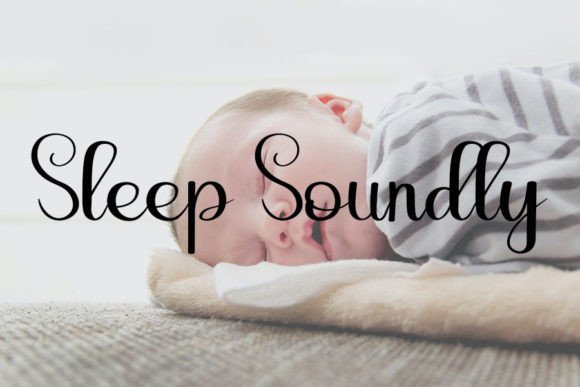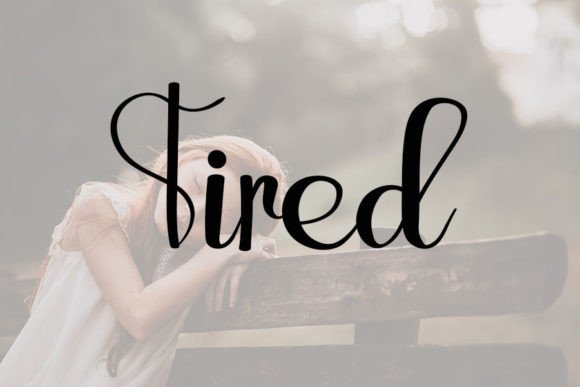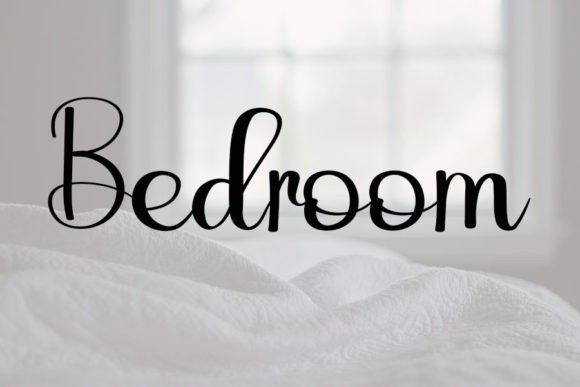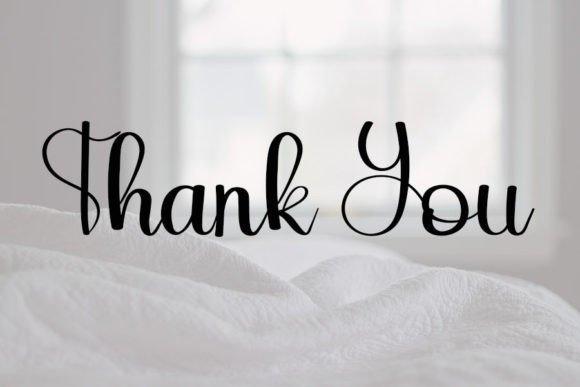
Introduction to Sleep Font
Have you ever found yourself in the middle of a creative project, pouring your heart and soul into every detail, and suddenly, the perfect font pops up in your mind? For designers, this moment is pure magic. And today, we’re excited to share with you a font that will make your designs stand out – the Sleep Font.
This beautiful, high-quality handwritten font is more than just a design resource; it’s a game-changer. With its elegant touch and timeless style, the Sleep Font is perfect for any creative project that requires a touch of sophistication. Whether you’re working on a branding project or creating a stunning visual content, this font is sure to impress. And the best part? It’s available for free download, making it an essential addition to any designer’s toolkit.
Key Features of Sleep Font
- High-quality design for creative projects, ideal for use in graphic design, web design, and digital art.
- Unique characteristics include a dreamy, ethereal feel, making it perfect for projects that require a touch of whimsy and imagination.
- Designed to be highly legible, even at small font sizes, making it an excellent choice for body text and headings.
Honest Review: Sleep Font
I recently stumbled upon Sleep Font, a free design resource that’s been making waves in the creative community. As a designer, I was excited to dive in and see what it had to offer.
What works well about Sleep Font is its high-quality design. The font is sleek, modern, and perfect for any creative project. I particularly love the transparent background, which makes it easy to overlay on any image or design.
Here are some of the key features that stood out to me:
- High-quality design with a modern feel
- Transparent background for easy overlay
However, I did encounter some limitations with Sleep Font. The font is only available in a single weight, which can be limiting for designers who need more flexibility.
Overall, I’m impressed with Sleep Font, and I think it’s a great addition to any designer’s toolkit. While it may not be perfect, it’s definitely worth checking out for any creative project.
Introduction to Sleep Font
Sleep Font is a high-quality, free design resource that can elevate your creative project with a touch of elegance. This font features a transparent background, making it perfect for overlaying on images or using as a standalone element.
Common Use Cases for Sleep Font
Sleep Font is perfect for:
- Editorial designs
Getting the Most Out of Sleep Font
For the best results, use Sleep Font in conjunction with other high-quality design elements, such as high-resolution images and professional color schemes.